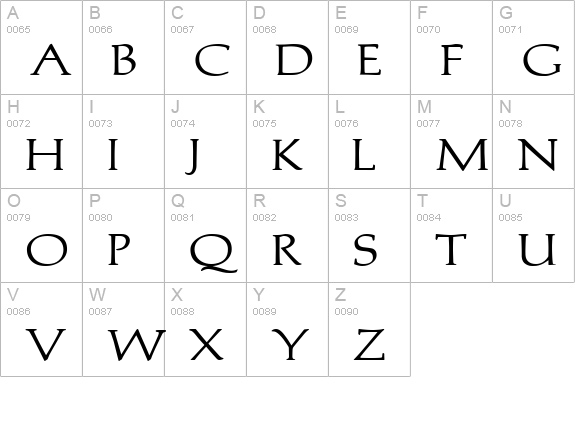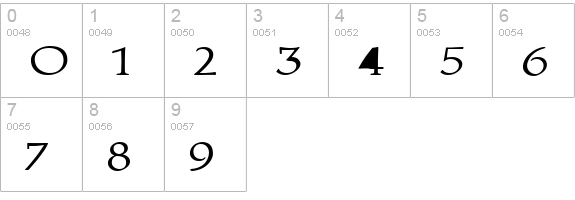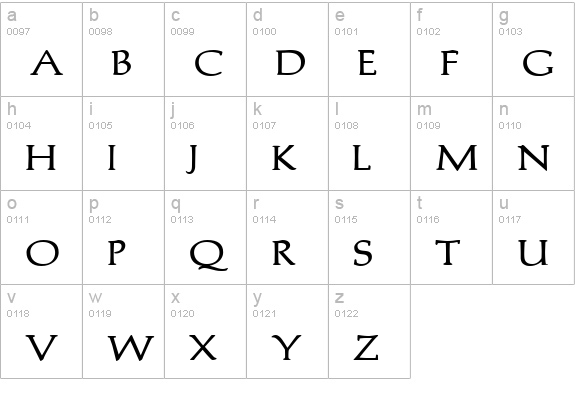
Trajan'sCapsExtended Bold Font Details
Trajan'sCapsExtended Bold is a strong, high-contrast variant in the Trajan'sCapsExtended typeface family \xE2\x80\x94 well suited to headlines, attention-grabbing titles, and strong calls-to-action.
Trajan'sCapsExtended Bold font is a powerful and impactful typeface that exudes confidence and authority. With its bold and commanding presence, it is perfect for headlines, titles, and any design that requires a strong visual impact. This font features extended caps that add a unique and stylish touch to any project. The bold weight enhances the overall impact of the typeface, making it stand out and grab attention effortlessly. One of the best things about Trajan'sCapsExtended Bold font is that it is freely available to download at FontsMarket.com. This means that you can easily access and use this incredible font without any hassle or cost. Whether you are a professional designer or an aspiring creative, having access to high-quality fonts like Trajan'sCapsExtended Bold can elevate your work to the next level. The versatility of this font is another reason why it is a must-have in your design toolkit. It pairs well with a variety of other typefaces and can be used across different design projects, such as branding, packaging, posters, and more. Its classic and timeless aesthetic ensures that it will never go out of style. With Trajan'sCapsExtended Bold font, you have the freedom to express your creativity and make a lasting impression. Its bold and impactful design will captivate your audience and leave a lasting impression. So, don't miss out on this incredible font and download it for free at FontsMarket.com today!